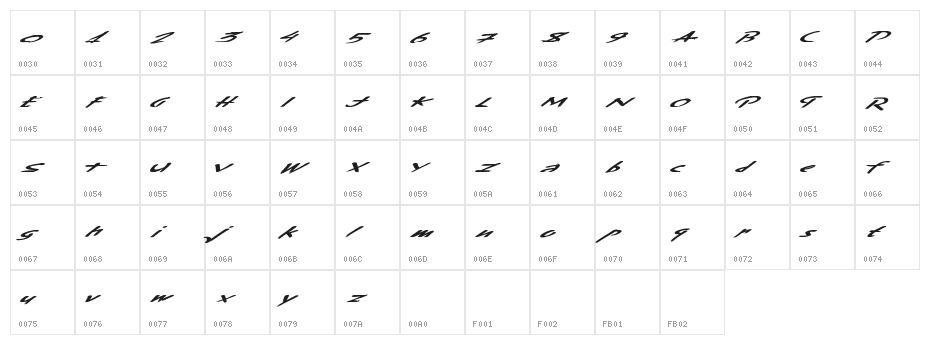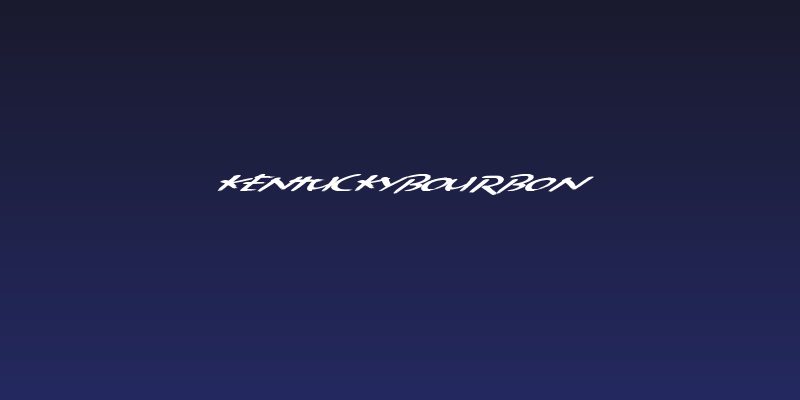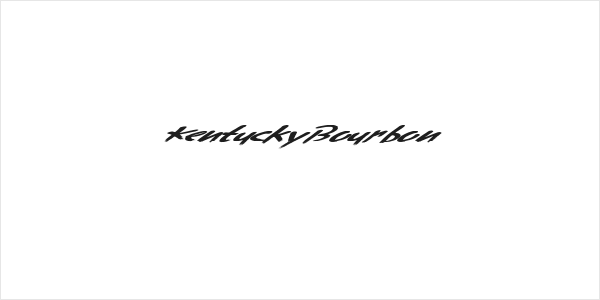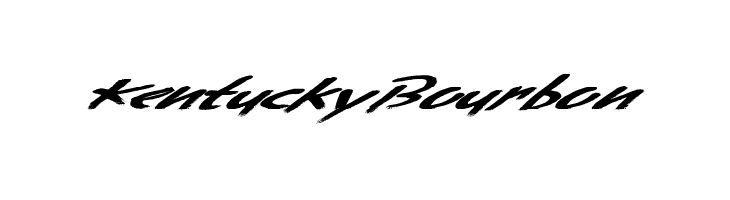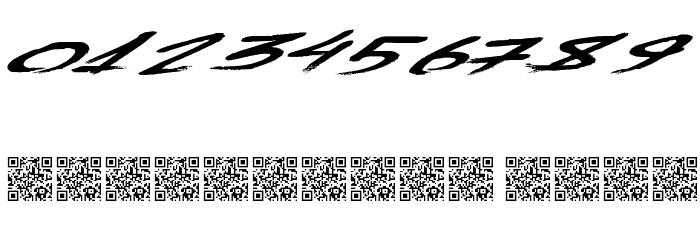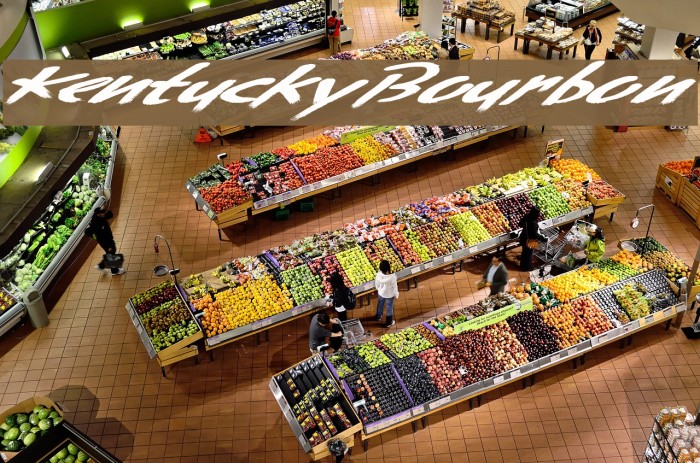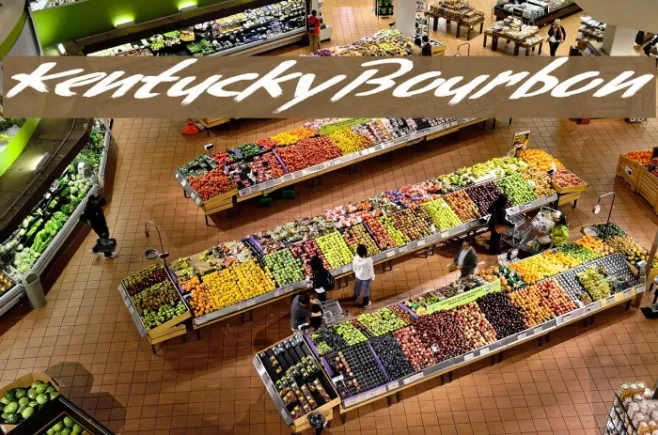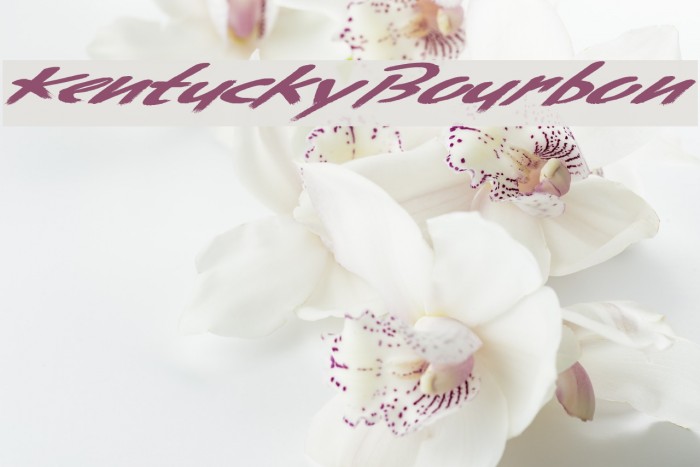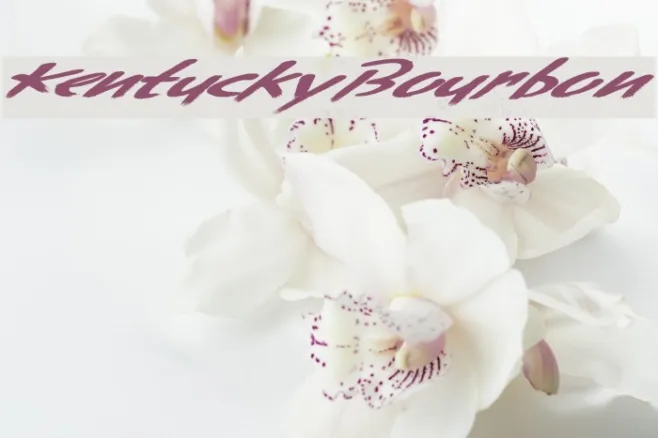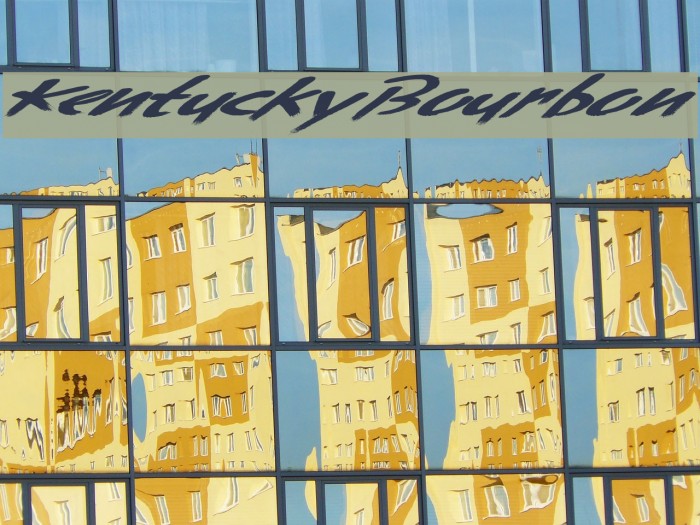
KentuckyBourbon Font
KentuckyBourbon Description
This font features a bold and dynamic script style with a brush-like appearance. The strokes are thick and energetic, giving a sense of movement and flair. The uppercase letters are particularly striking, with dramatic flourishes and a sense of urgency. The lowercase letters maintain the same energetic style, providing a cohesive look throughout. Numbers and special characters are designed with the same bold strokes, ensuring consistency. The overall impression is one of boldness and expressiveness, making it suitable for projects that require a strong visual impact.
| Proposed Projects | Ideal for branding, packaging, posters, and any design needing a bold, artistic touch. |